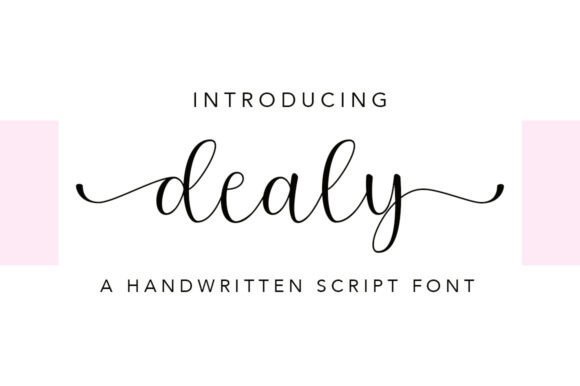
The Perfect Handwritten Touch: Discovering Dealy Font
There’s something magical about scribbling down a handwritten note to a loved one, the ink bleeding onto the page as you pour your heart onto the paper. It’s a moment of vulnerability, of connection, of love. And that’s exactly what designers aim to capture with the right font – a sense of warmth and personality that speaks directly to the heart.
Enter Dealy Font, a stunning handwritten font that adds a touch of elegance to any design. Whether it’s a wedding invitation, a heartfelt thank you card, or a beautiful quote, Dealy Font brings a sense of whimsy and romance to the table. Its versatility makes it a valuable asset for designers, allowing them to add a unique touch to any project.
- Unique Characteristics: Dealy Font features a unique blend of modern and vintage elements, with a mix of geometric shapes and elegant curves, making it perfect for creating a distinctive and eye-catching visual identity.
- Scalability: Dealy Font is highly scalable, meaning it looks great in various sizes, from small text to large headings, without losing its clarity and legibility.
Designer Review: Dealy Font
I recently had the chance to work with the Dealy font, and I have to say it’s been an interesting experience. ✨ Here are some of the things that work well:
- Unique character set: The Dealy font has a distinctive character set that sets it apart from other fonts. It’s perfect for designers who want to add a touch of personality to their projects.
- Legibility: Despite its quirky appearance, the Dealy font is surprisingly legible, especially at larger font sizes.
- Good for headings: The font’s bold and playful nature makes it perfect for headings and titles.
However, there are some limitations to keep in mind ⚠️:
- Readability at small font sizes: While the Dealy font is legible at larger font sizes, it can become difficult to read at smaller sizes.
- May not be suitable for body text: Due to its bold and playful nature, the Dealy font may not be the best choice for body text, where readability is key.
Overall, I’d say the Dealy font is a great addition to any designer’s toolkit, but it’s not a one-size-fits-all solution. It’s best used for headings, titles, and other design elements where its unique personality can shine through.
Dealy Font is ideal for:
- Creating elegant titles and headings.
- Designing professional-looking graphics and illustrations.
- Adding a touch of sophistication to presentations and documents.